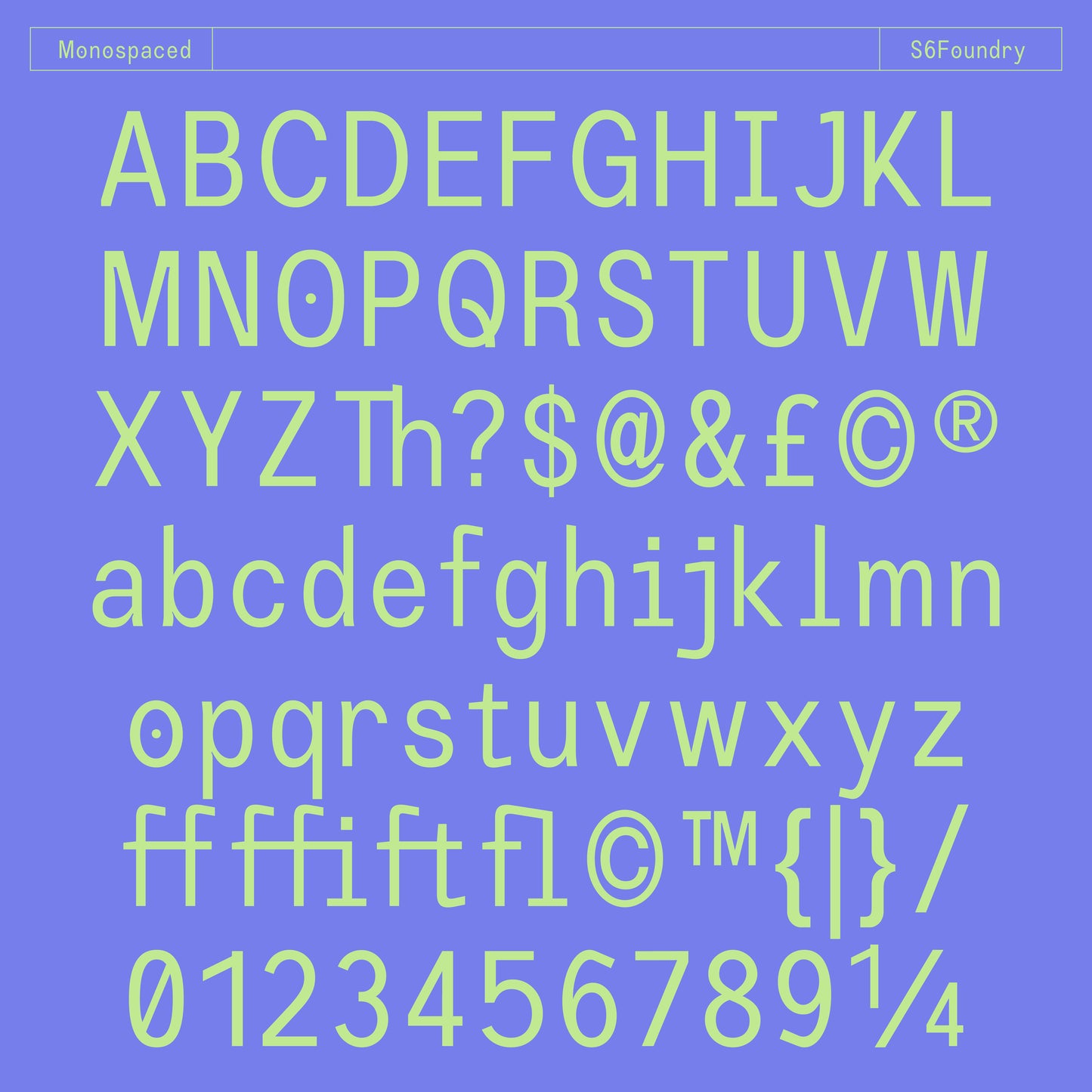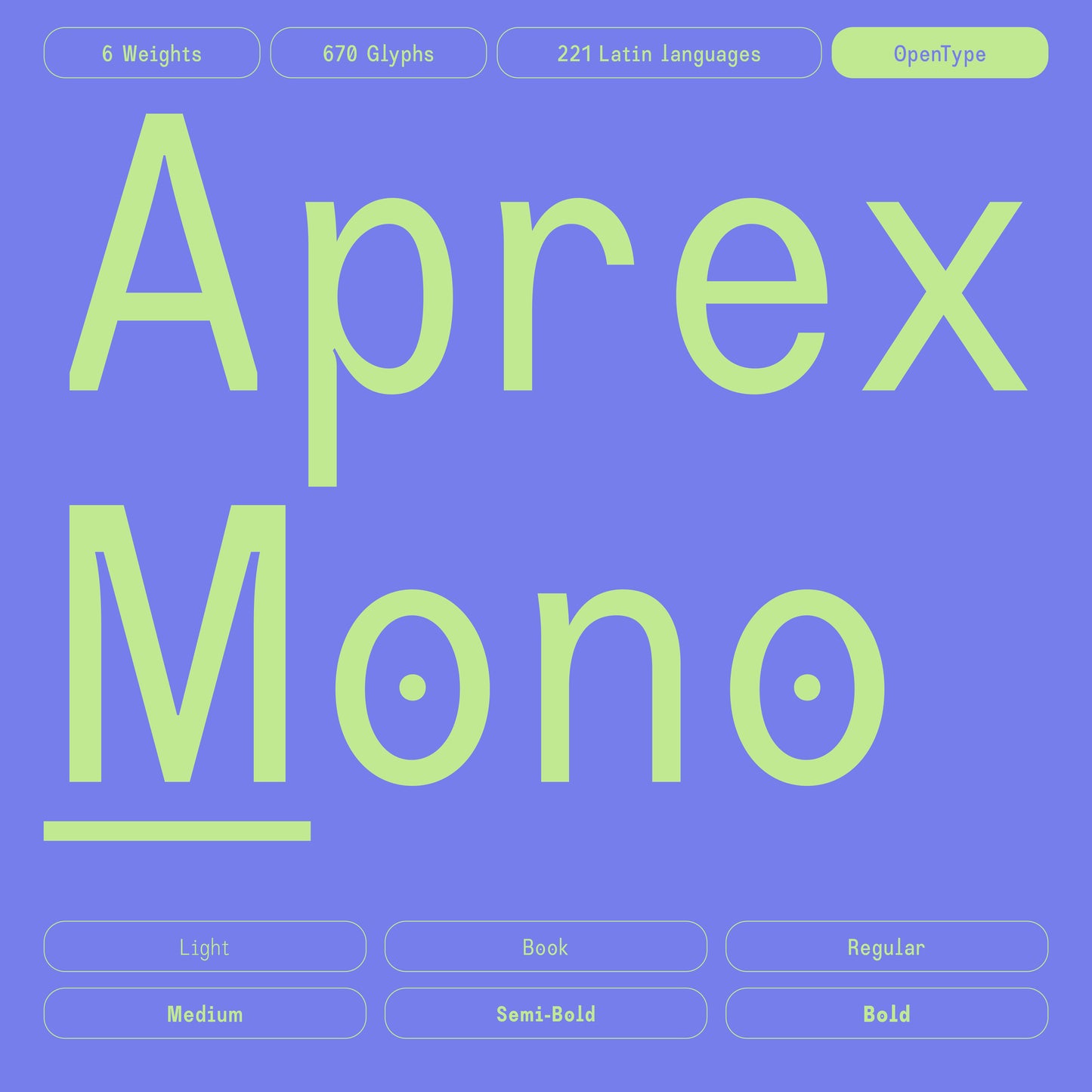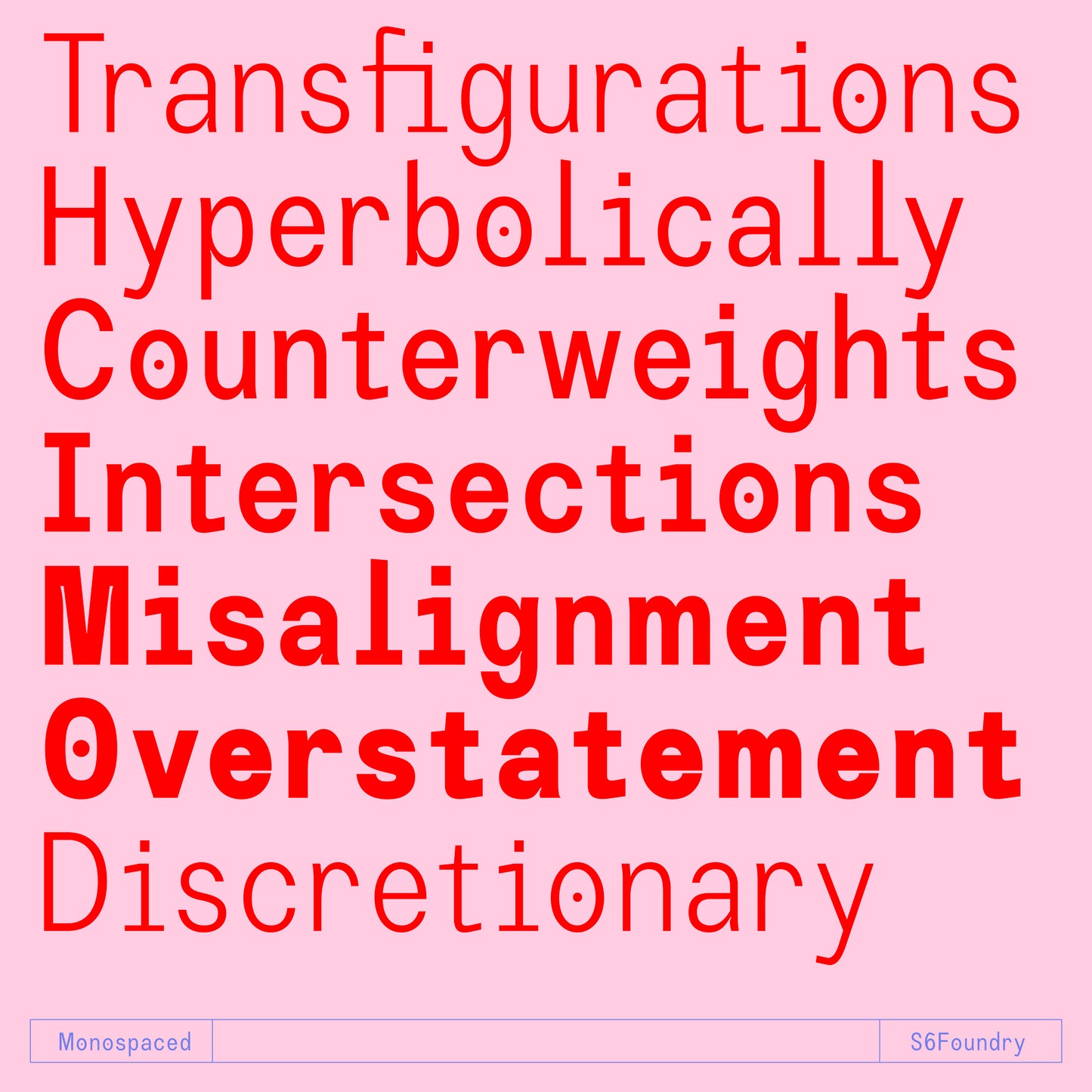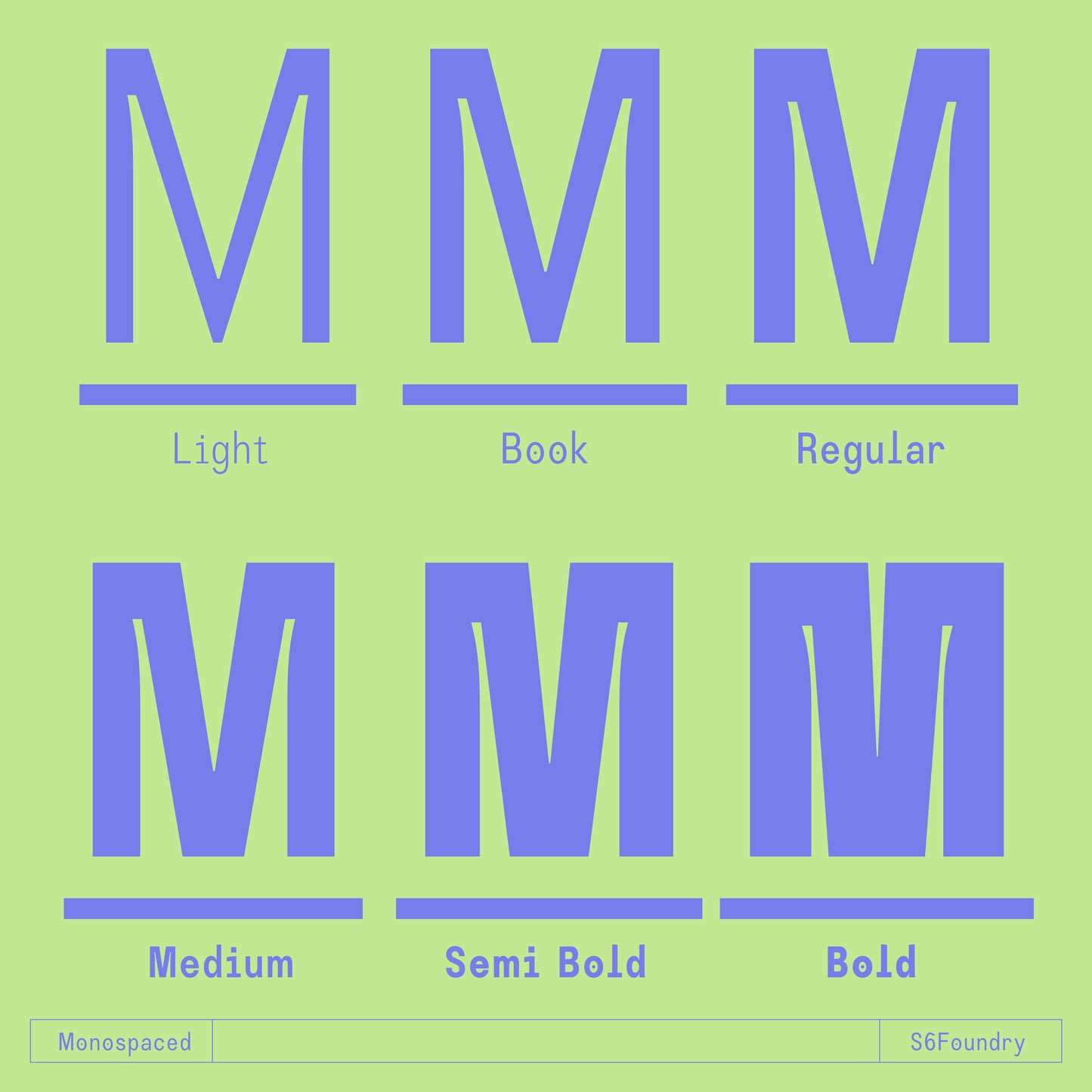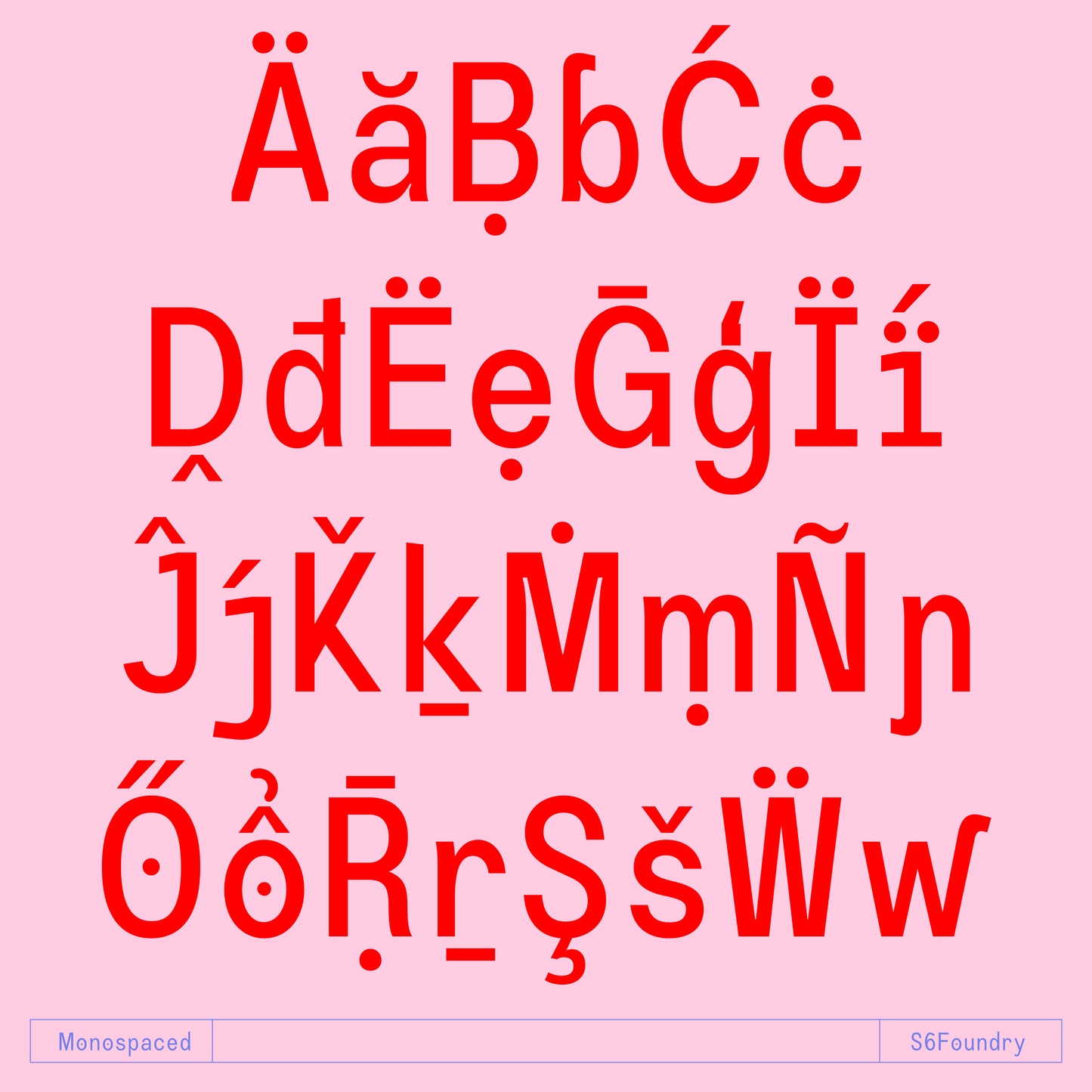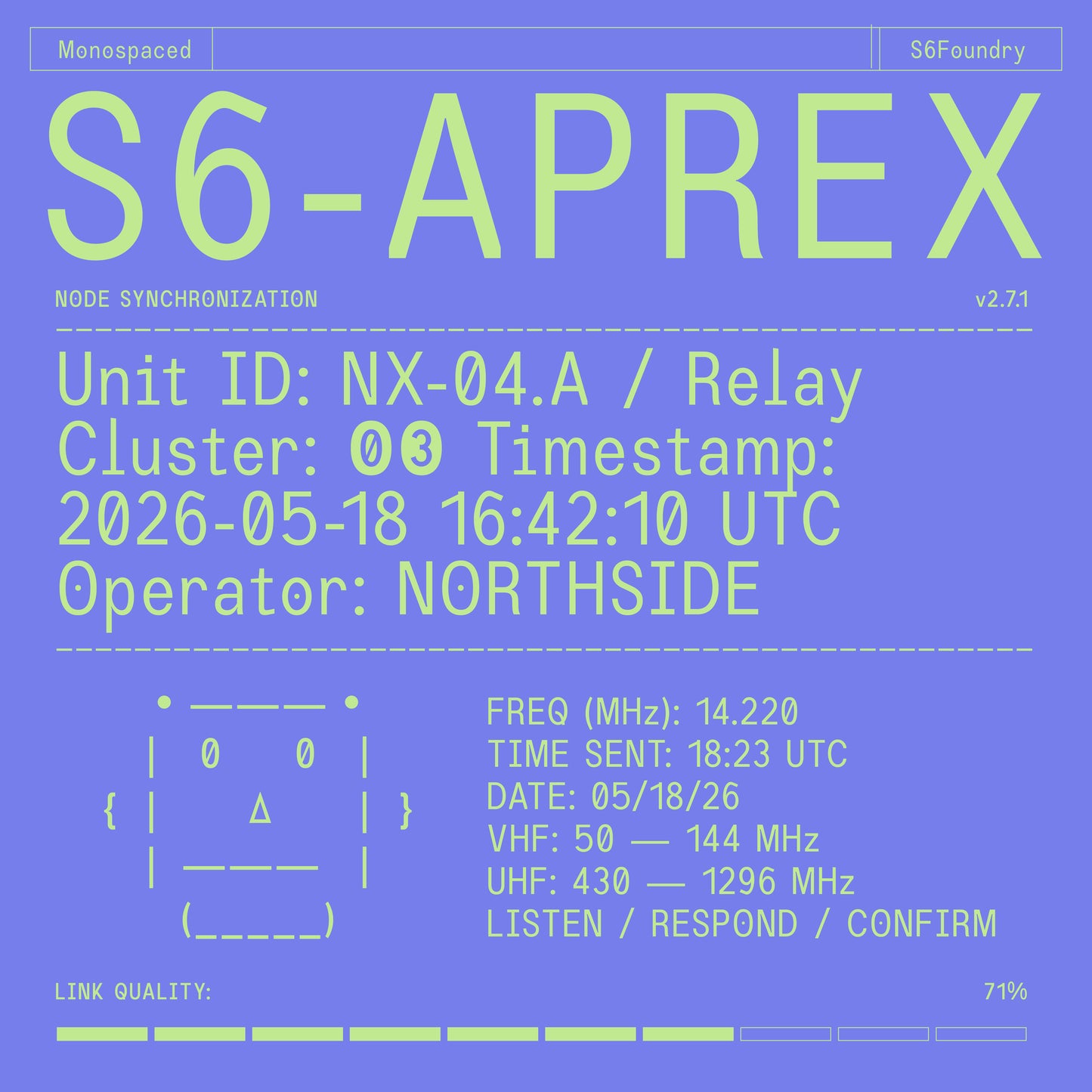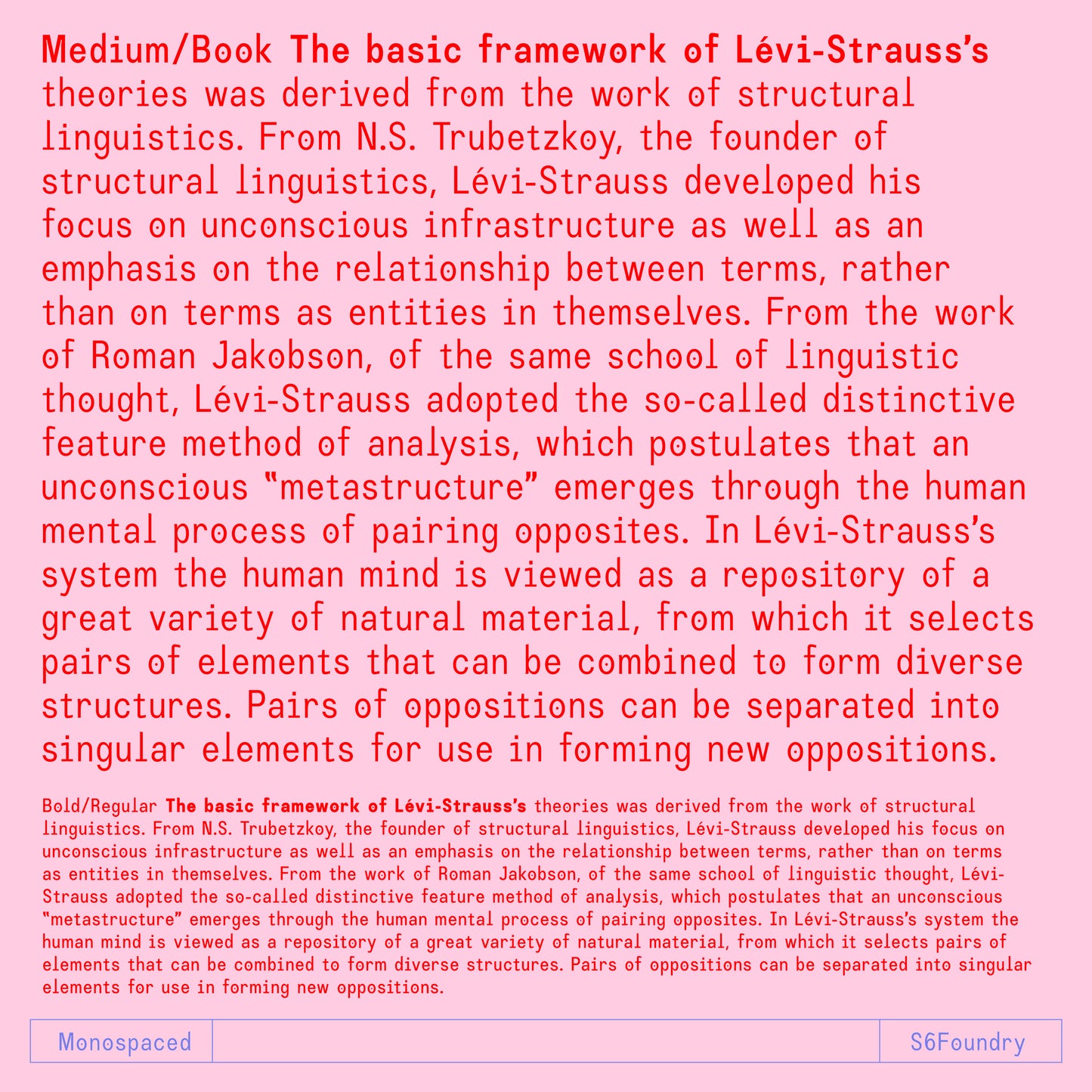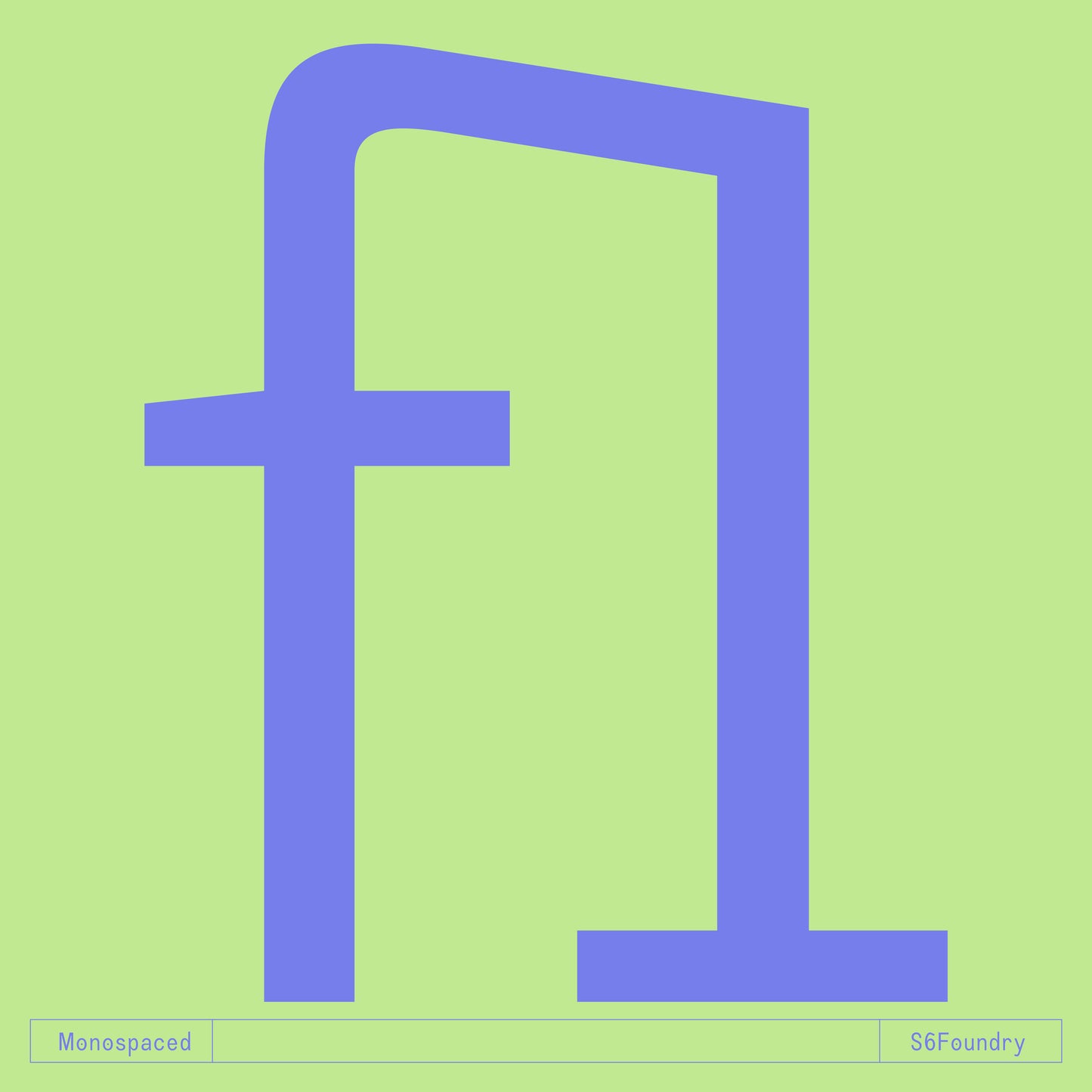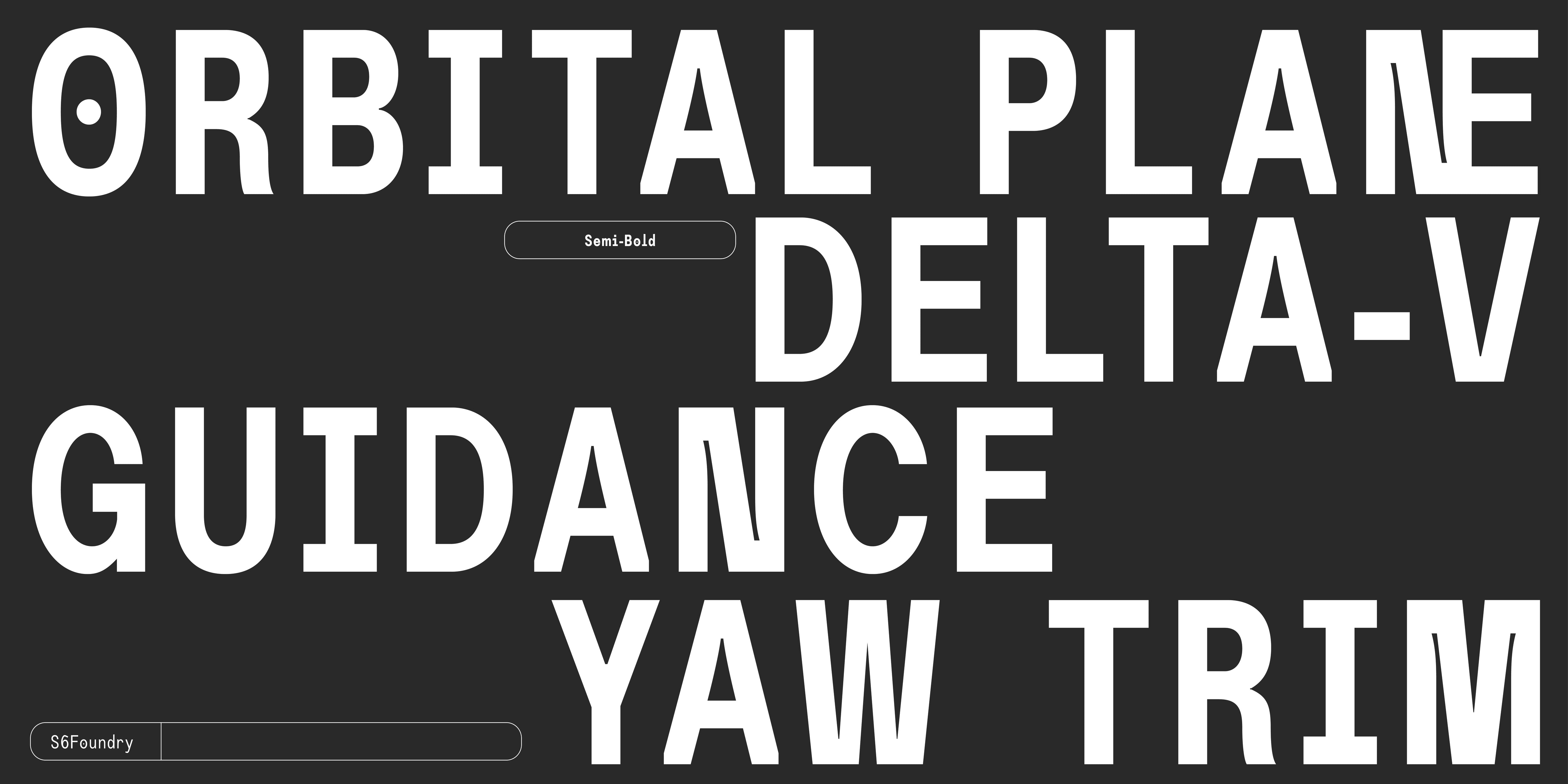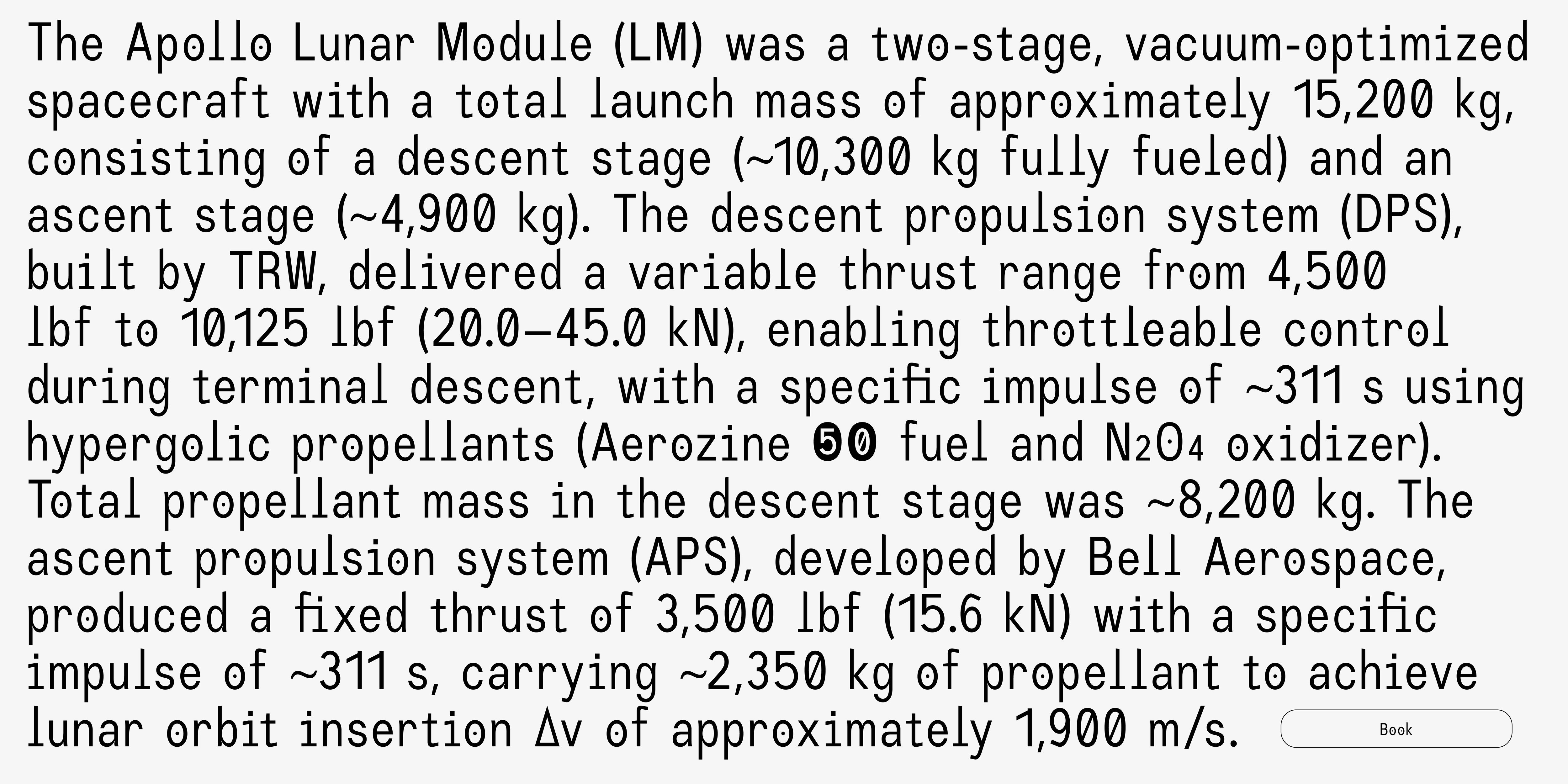
Aprex Mono
S6 Foundry
Aprex Mono is a contemporary monospaced typeface designed for clarity, precision, and structured visual rhythm. Built with carefully balanced proportions and refined spacing, the family moves beyond traditional coding aesthetics to support branding, editorial design, interfaces, and modern digital communication.
Aprex Mono introduces a more controlled and sophisticated typographic texture. Subtle geometric detailing, open forms, and carefully moderated contrast create a system that feels technical without becoming sterile. The family performs equally well in functional and expressive environments.
— TOTAL GLYPHS: 680
— 21 LATIN EXTENDED LANGUAGES
— DISCRETIONARY LIGATURES
— STANDARD LIGATURES
— STYLISTIC ALTERNATIVES